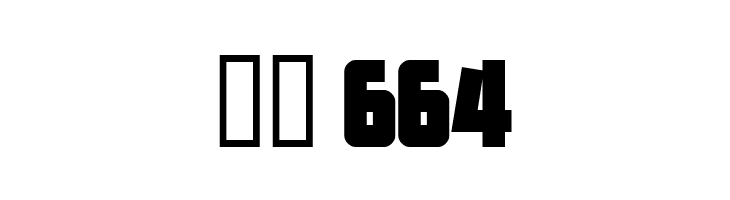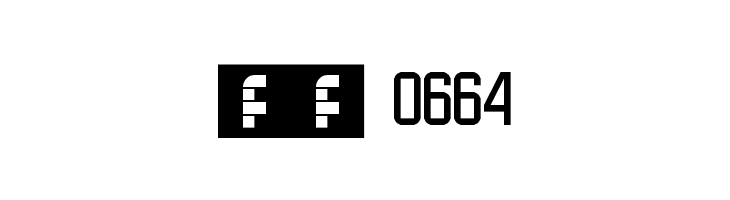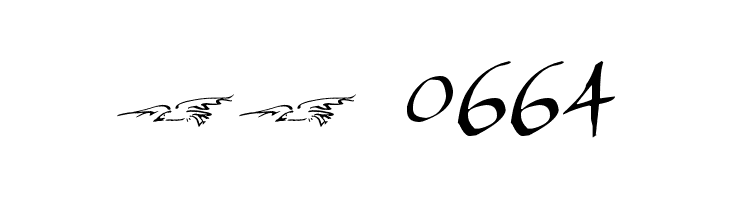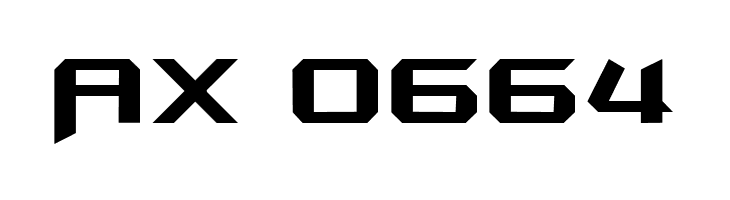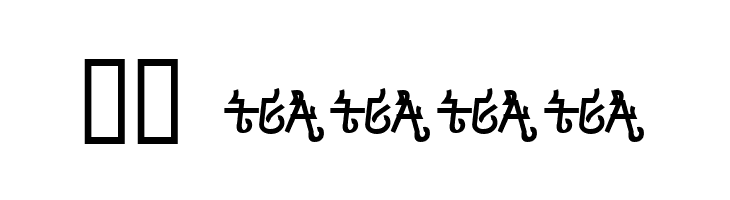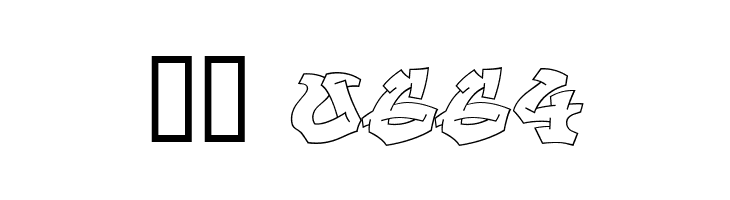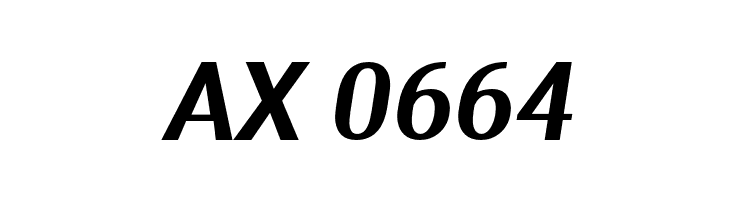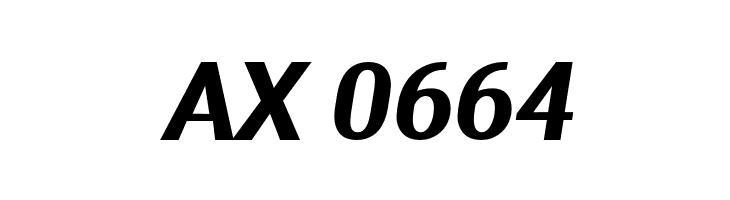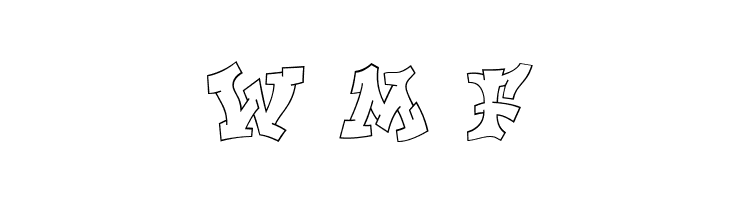
A bold, futuristic font with sharp angles and a dynamic slant.
A bold, brush-style font with a hand-drawn, artistic appearance.
A bold, brush-style font with a hand-drawn, energetic appearance.
A bold, dotted font with rounded edges and a playful, modern style.
Bold, modern sans-serif with a futuristic style.
A bold, geometric font with a modern and industrial aesthetic.
A bold, modern font with geometric influences and strong, clean lines.
A dynamic, calligraphic font with sweeping curves and sharp terminals.
A bold, flowing script font with elegant curves and dramatic swashes.
A distressed, grunge-style serif font with a vintage, edgy appearance.
A bold, geometric font with a strong visual impact.
A modern, geometric font with rounded edges and a futuristic appeal.
A bold, rounded font with a modern and playful style.
A bold, italicized font with smooth curves and a dynamic, playful style.
A dynamic italic font with smooth curves and sharp angles, exuding elegance and modernity.
A futuristic, outlined font with geometric shapes and rounded edges.
A modern, italic, outlined font with a dynamic and decorative style.
An elegant script font with flowing, cursive characters and refined details.
A sophisticated script font with flowing, interconnected letters and elegant flourishes.
A bold, playful font with a 3D striped pattern and rounded edges.
A bold, slanted font with a dynamic and energetic style.
Illustrations of various aeroplanes in a structured grid format.
A bold, angular font with a futuristic and dynamic style.
A sleek, futuristic font with geometric elements and clean lines.
A bold, expressive brush-style font with a dynamic, hand-painted look.
A bold, outlined font with a modern and playful aesthetic.
A bold, graffiti-style font with angular, dynamic forms and a three-dimensional effect.